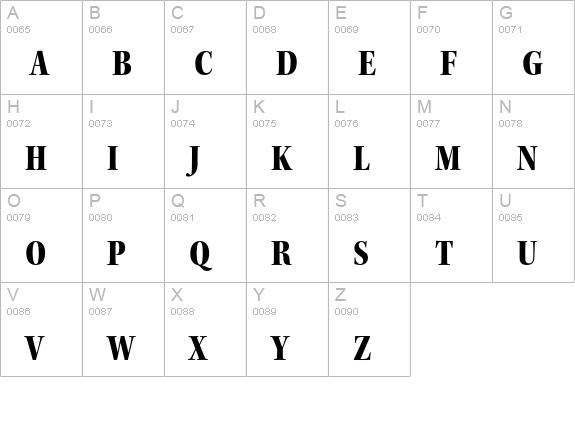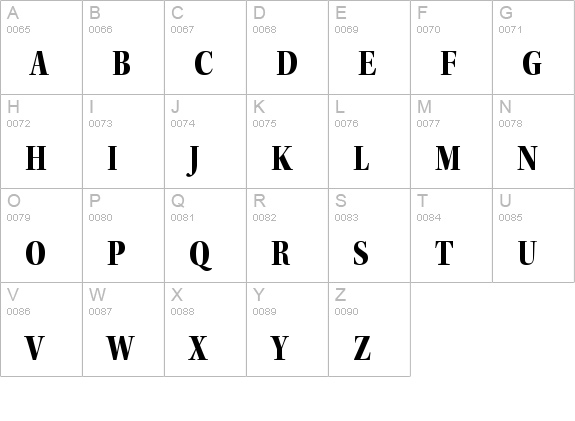
Kepler Std Black Condensed Subhead Font Details
Kepler Std Black Condensed Subhead is a maximum-weight, dramatic, condensed-width variant in the Kepler typeface family \xE2\x80\x94 well suited to maximum-impact headlines, posters, and packaging.
Kepler Std Black Condensed Subhead font is a stunning typeface that exudes elegance and sophistication. With its bold and condensed design, it is perfect for creating eye-catching subheadings and titles that demand attention. The thick strokes and tight letter spacing give this font a strong and impactful presence. Featuring an exquisite balance between modernity and classicism, Kepler Std Black Condensed Subhead font is a versatile choice for various design projects. Whether you are working on a magazine layout, website header, or branding materials, this font will add a touch of professionalism and sophistication to your work. What makes Kepler Std Black Condensed Subhead font even more appealing is the fact that it is available for free! You can easily download this font from FontsMarket.com, a trusted source for high-quality fonts. This means that you can enhance your designs with this exceptional typeface without spending a dime. Don't miss out on the opportunity to elevate your design projects with Kepler Std Black Condensed Subhead font. Download it for free today at FontsMarket.com and effortlessly bring a touch of elegance and style to your creative endeavors.